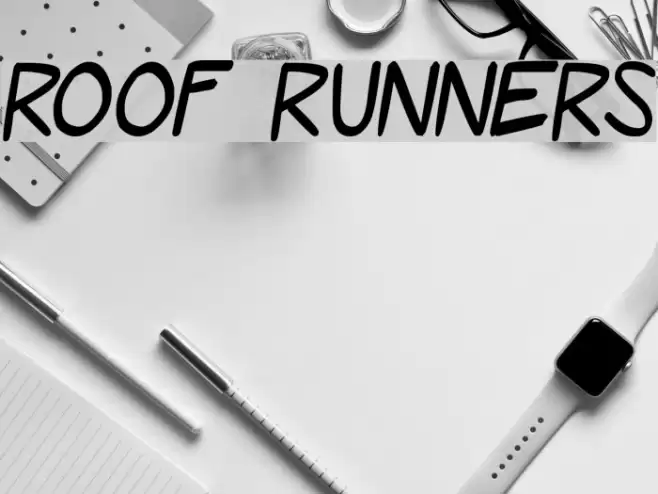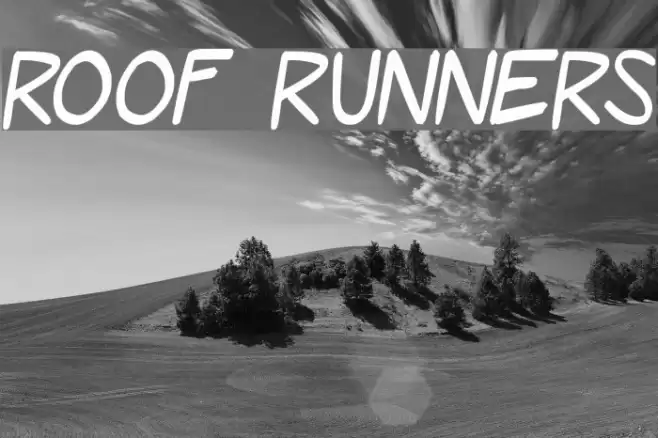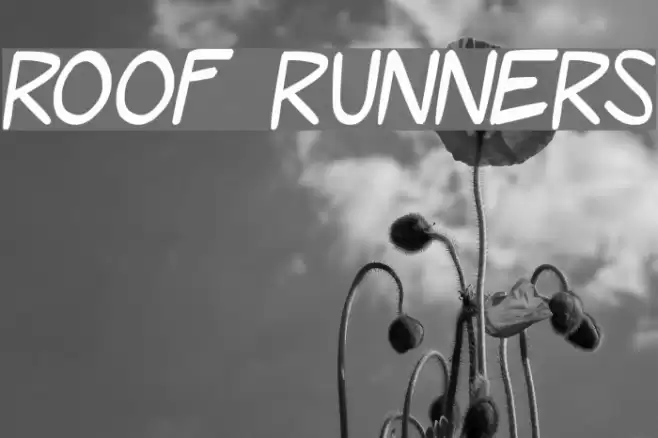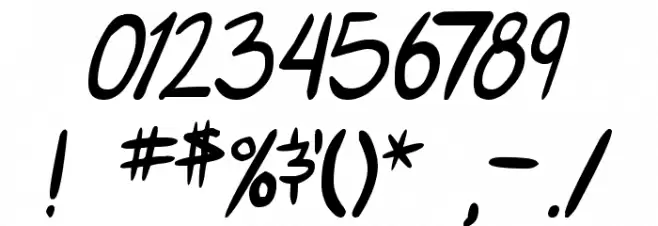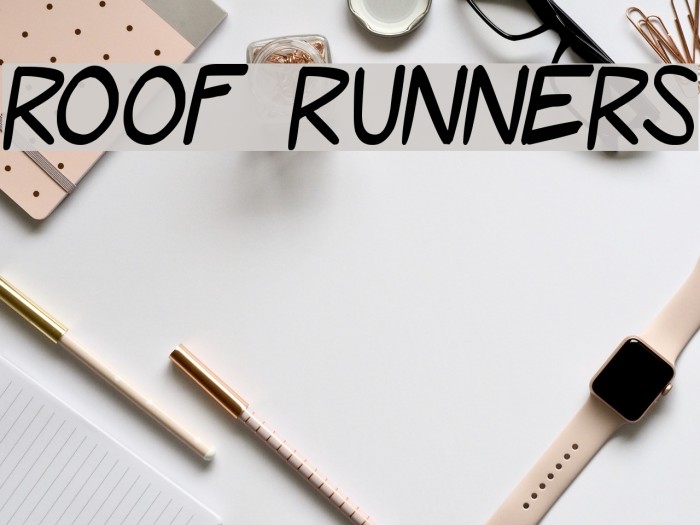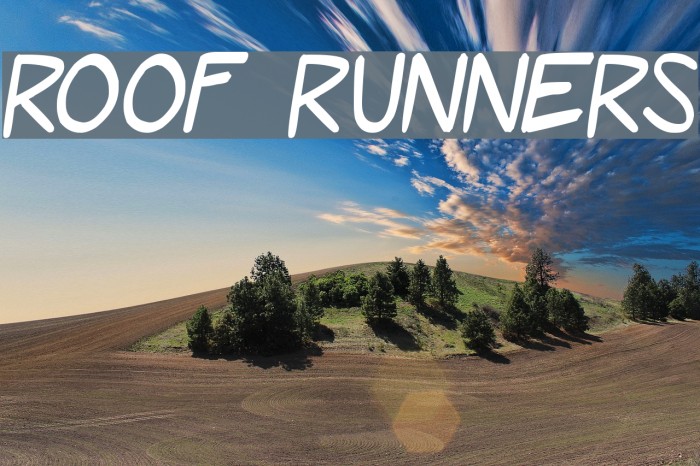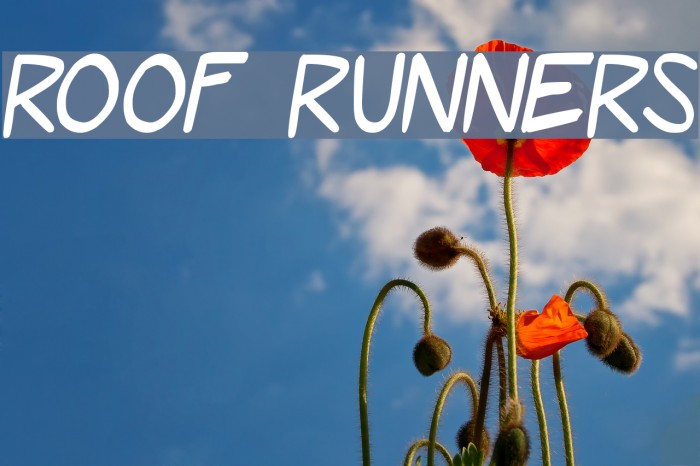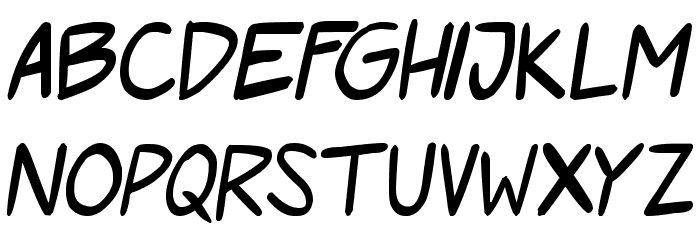
Roof Runners Font
Roof Runners Description
This font features a playful and energetic handwritten style, characterized by its smooth, flowing strokes and slightly slanted letters. The uppercase and lowercase letters maintain a consistent rhythm, giving the text a lively and informal appearance. The numerals and special characters are crafted with the same dynamic flair, ensuring a cohesive look across all elements. The font's casual and friendly vibe makes it ideal for projects that aim to convey a sense of approachability and creativity.
A playful, handwritten font with smooth, flowing strokes and a lively appearance from Comic fonts.
- Proposed Projects: Ideal for greeting cards, children's books, casual branding, and social media graphics.
- Overall Style: Casual
- Use Case: Logos, Headlines, Informal Texts